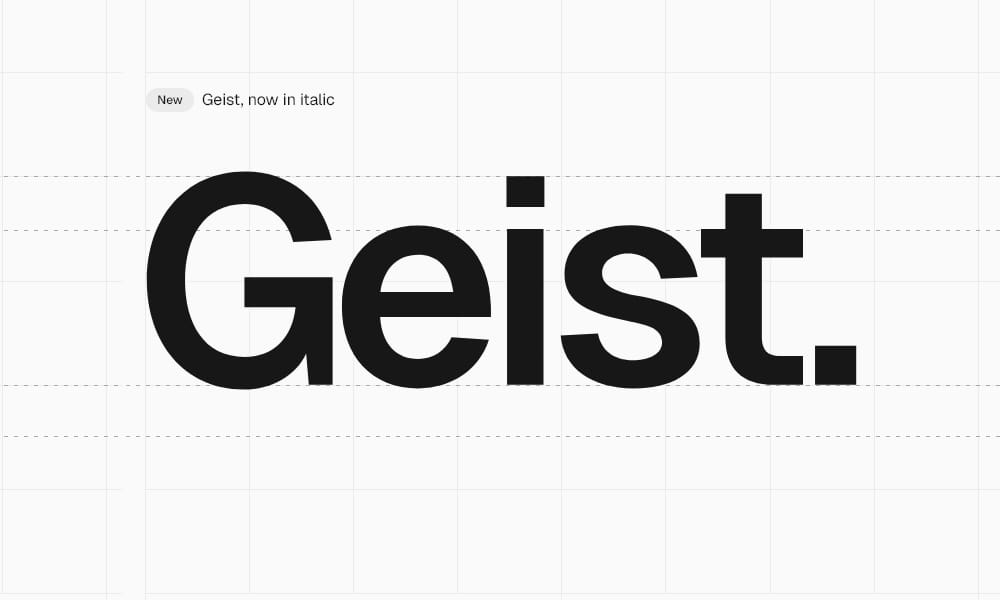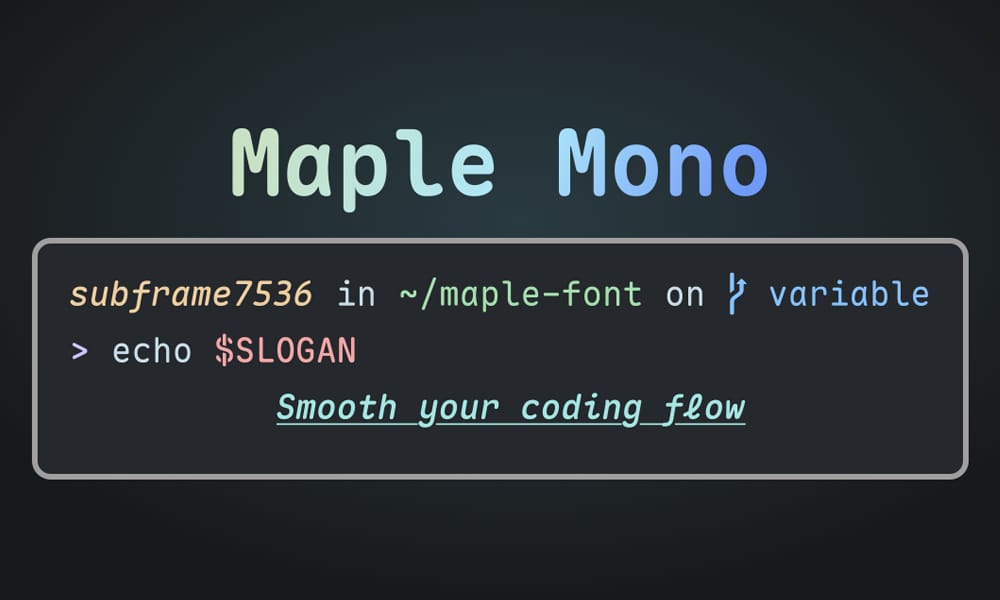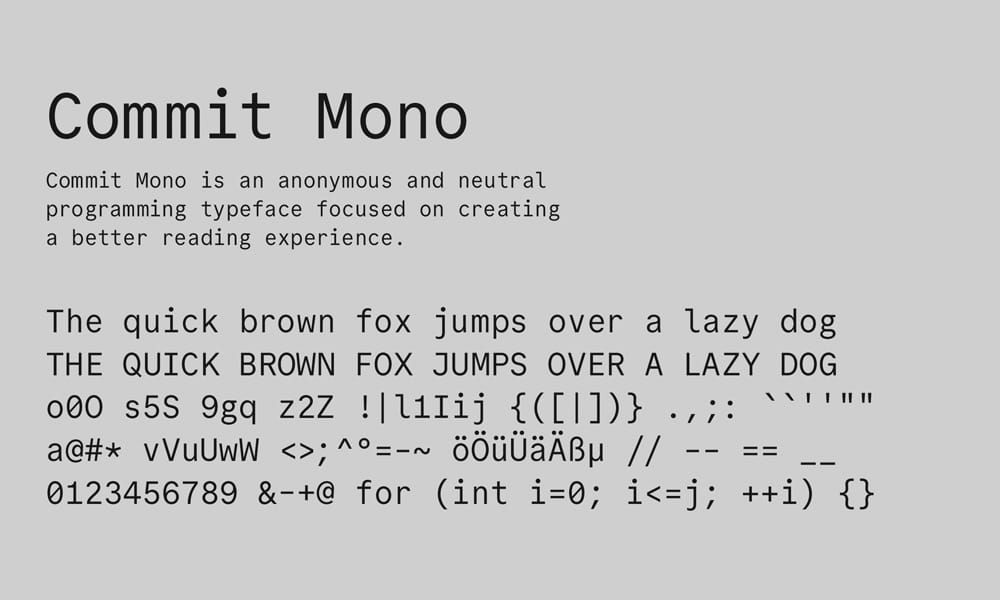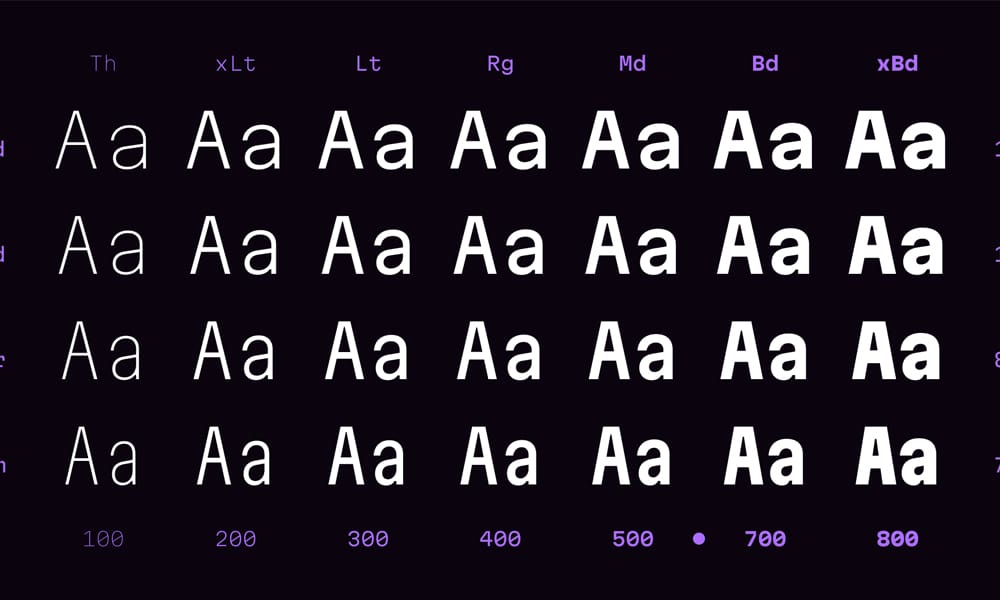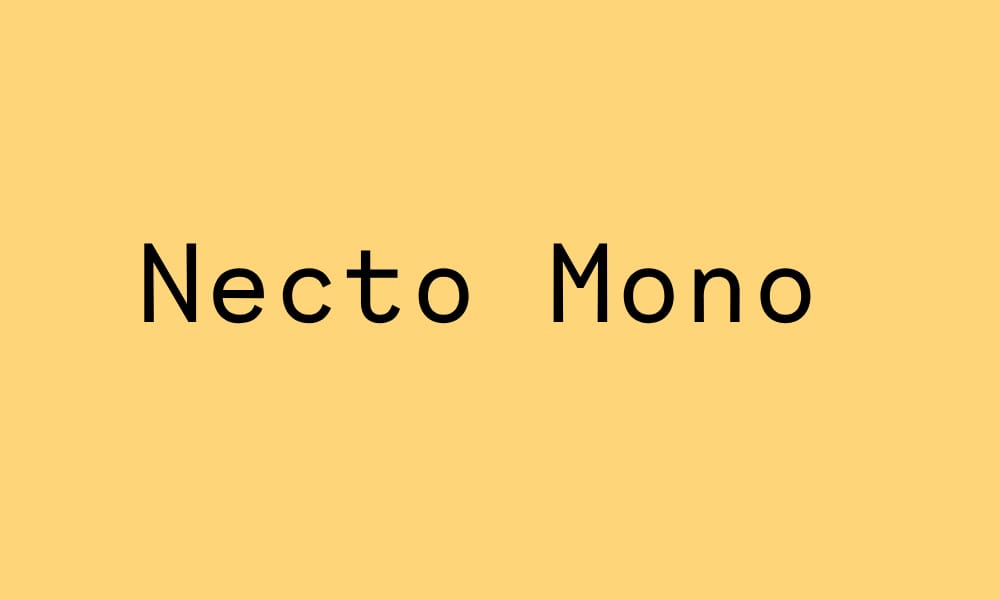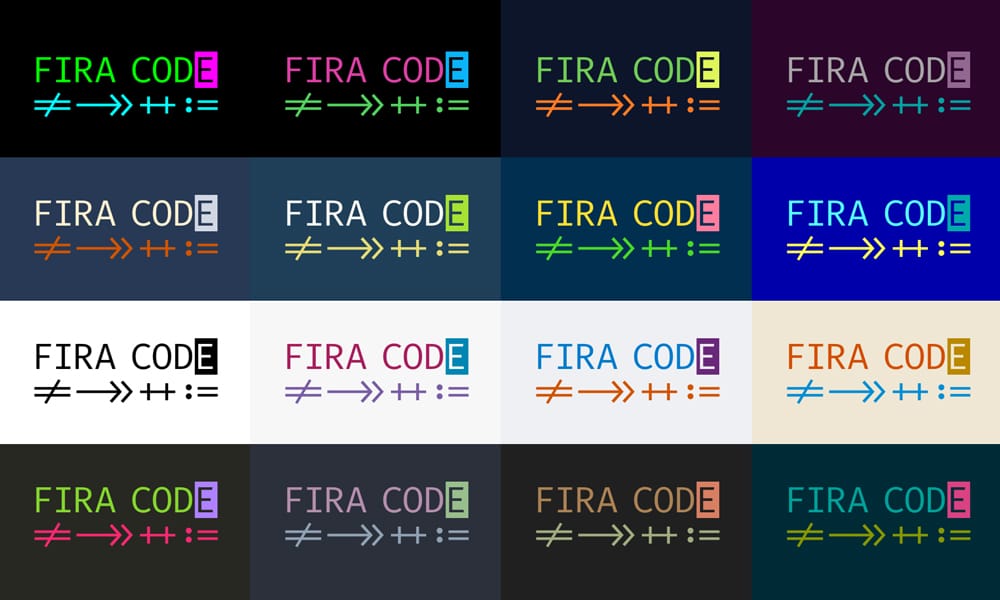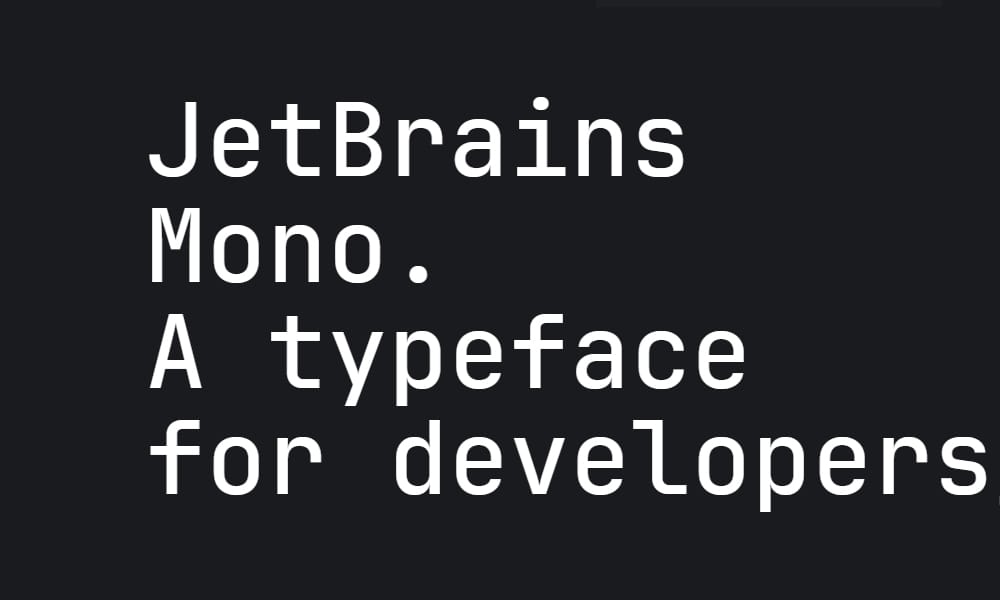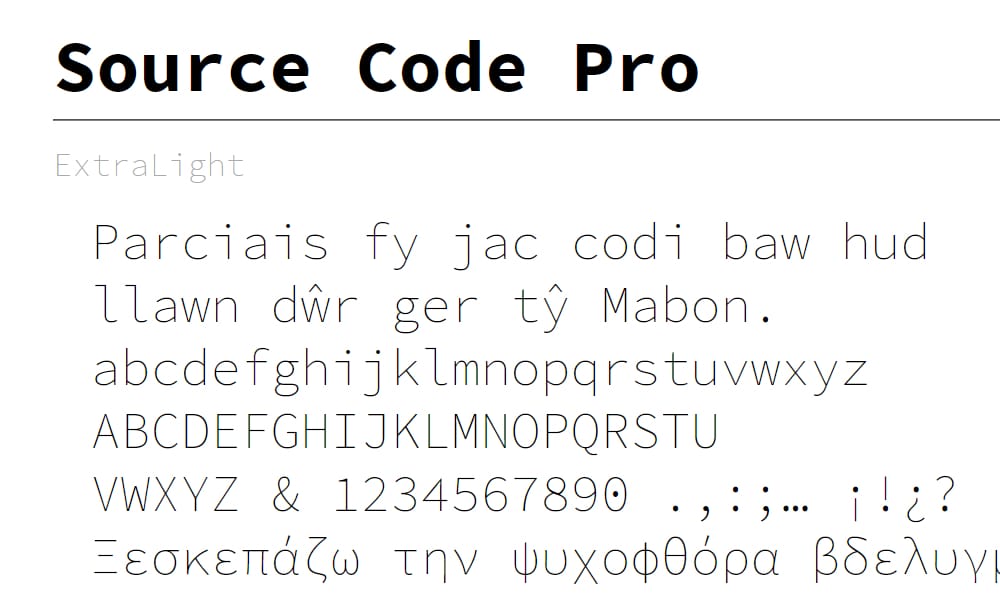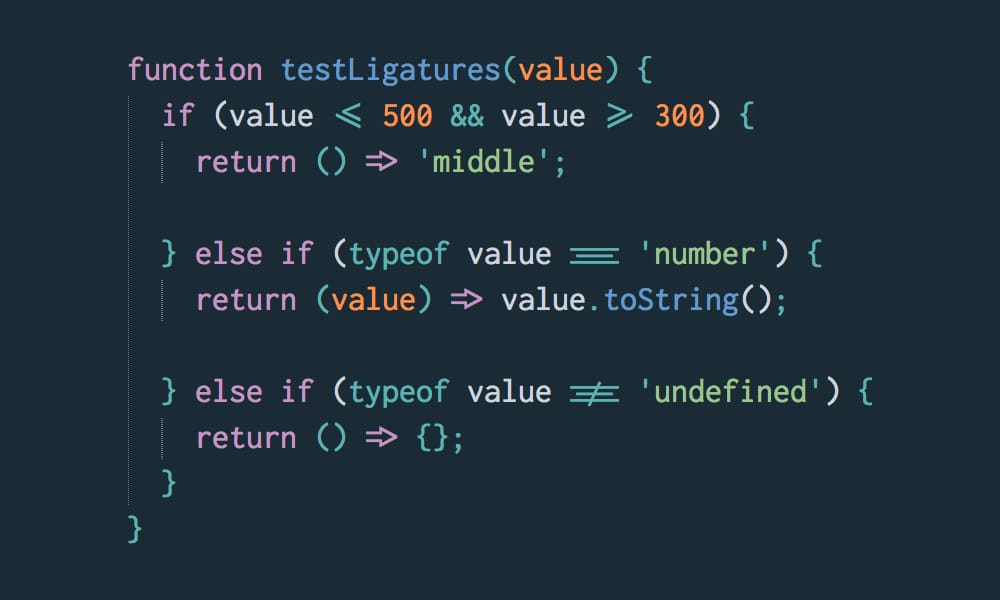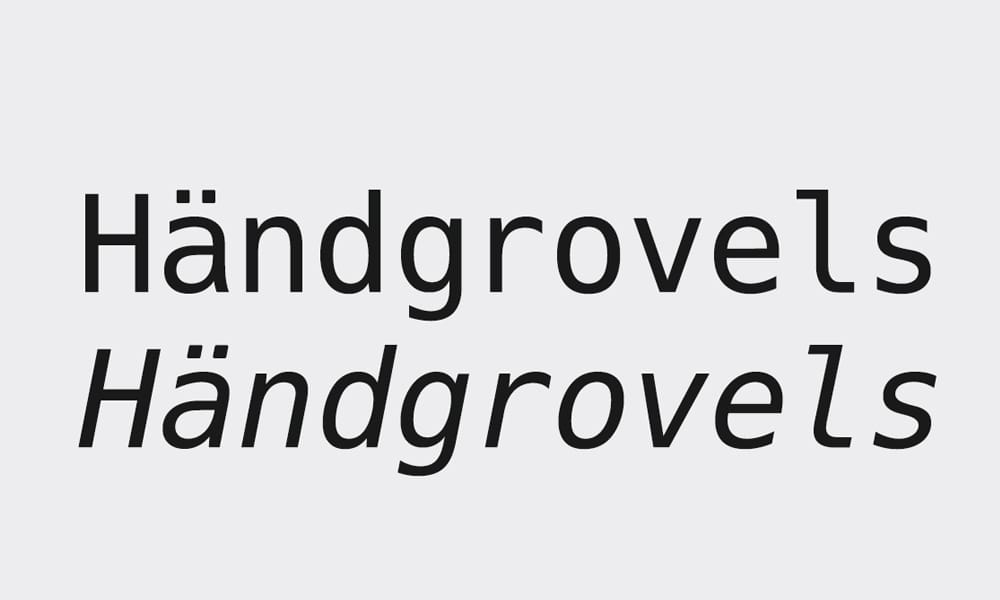
65+ Best Free Monospace Fonts for Coding & Design (2024-2025)
You’ve spent the last four hours debugging a React component, and your eyes are burning. The default system font in your editor feels like it was designed by someone who’s never actually written code. Sound familiar?
Choosing the right monospace font might seem like a small decision, but it genuinely affects your productivity and coding experience. The difference between a font that makes code blend together and one where characters are crystal clear isn’t just aesthetic—it’s functional. A good monospace font reduces eye strain, improves character distinction, and honestly makes you want to open your editor.
This guide features 65+ free monospace fonts that actually solve real problems for developers and designers. We’ve ditched the “top 10 lists” that repeat the same 2018 recommendations and instead curated a comprehensive collection that includes 2024-2025 releases, tested use cases, and honest pros/cons. Whether you’re a React developer who lives in VS Code, a UI designer looking for that perfect terminal aesthetic, or a beginner coder just starting out, you’ll find your next favorite font here.
What makes this different? We organized fonts by category and use case rather than just alphabetically dumping 65 names. Each font gets honest coverage of its strengths and limitations. And yes, we’ve included the newer players like Geist Mono and Maple Mono that most competitor articles haven’t touched yet.
What Are Monospace Fonts?
Before we dive in, let’s clarify what makes a font monospaced in the first place.
A monospace font (also called a fixed-width font) assigns the same horizontal width to every character. This is different from proportional fonts where an “i” takes less space than a “w.” In monospace, an “m” and an “l” occupy identical widths—crucial for code alignment and readability.
Monospace fonts trace their lineage back to typewriters, where mechanical constraints forced fixed spacing. Modern versions preserve this design principle because it solves real problems: code lines up vertically, characters are visually distinct, and your eyes don’t work overtime trying to parse 0O1l at a glance.
Think of it this way: monospace fonts are the typography equivalent of a grid system in design. Everything aligns. Everything is predictable. And in code, predictability is comfort.
Why Use Monospace Fonts for Coding?
You might wonder: can’t I just code in any font? Technically, yes. Practically? No. Here’s why monospace fonts matter:
Character Distinction. In poor fonts, characters like zero (0), capital O (O), lowercase L (l), and the number one (1) become indistinguishable blurs. A good monospace font makes each of these visually unique. When debugging, this clarity saves mental cycles.
Code Alignment. Monospace keeps your code vertically aligned. Array elements line up. Operator signs stay in the same column. This visual structure reduces cognitive load—your brain processes aligned information faster than scattered information.
Reduced Eye Strain. Extended coding sessions (hello, 8-hour days) are exhausting on the eyes. Monospace fonts optimized for screen readability, with appropriate x-height and character spacing, genuinely reduce fatigue compared to compressed or poorly spaced alternatives.
Professional Standard. Every modern code editor defaults to monospace. GitHub renders code in monospace. Terminal emulators use monospace. It’s the universal language of development.
Ligatures (Optional Feature). Some monospace fonts support programming ligatures—visual combinations that transform sequences like =>, ->, or != into single glyphs. Whether you love or hate ligatures is personal, but when available and enabled, they can improve code scanning speed for some developers.
How to Choose the Right Monospace Font
Before you scroll through 65 options, use this framework to narrow down your choices:
1. Ligature Preference. Do you want ligatures or not? If yes, look for fonts marked with ligature support. If not (many developers prefer accuracy over aesthetics), stick to ligature-free options or disable them in your editor.
2. Character Clarity Test. Open the preview of any font and look for these characters: 0O1lI|!{}(). Are they distinct? Do you confuse any? If yes, move on.
3. X-Height Consideration. X-height is the height of lowercase letters like “x” or “a.” Larger x-height can feel more spacious; smaller x-height can fit more code on screen. Try different sizes in your actual editor—not just previews.
4. IDE/Terminal Compatibility. Most fonts work in VS Code, JetBrains IDEs, and modern terminals. But if you use older software or terminal emulators, check compatibility first.
5. File Size & Performance. If you’re embedding fonts on a website, lightweight options matter. For local editor use, file size is irrelevant.
6. License Requirements. Most fonts here are open-source (MIT, OFL, or similar). If you’re using fonts commercially or in proprietary projects, verify the license.
Want my personal recommendations? Fira Code if you love ligatures and community. JetBrains Mono if you prioritize refined technical design. Victor Mono if you want a distinctive personality with functional excellence. Geist Mono if you’re building modern web projects.
But honestly? Pick one that makes you happy when you open it. That satisfaction matters more than any technical specification.
Try two today. You’ll never design without finding your favorite.